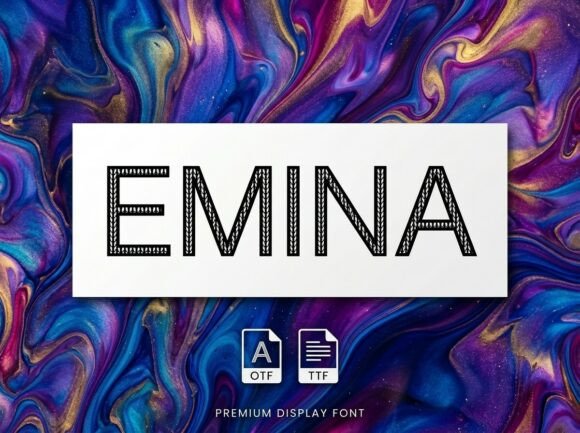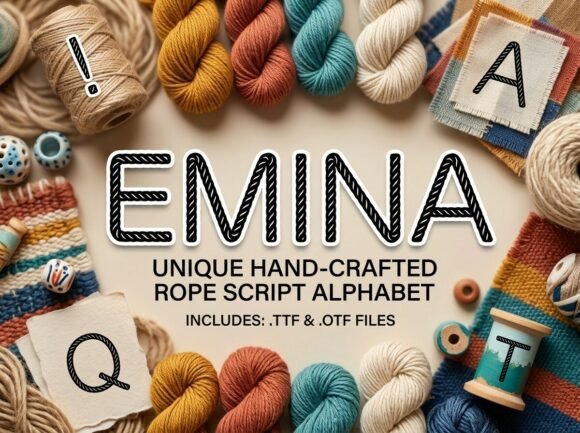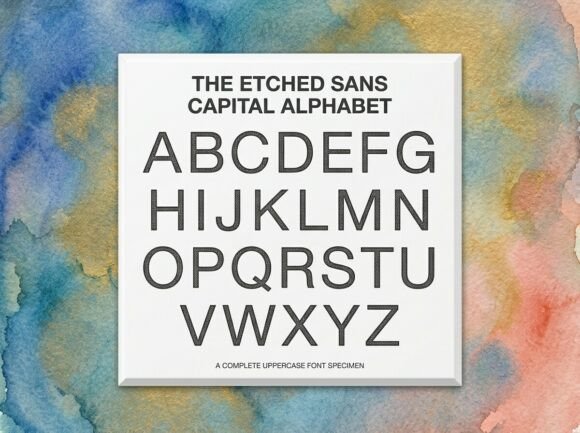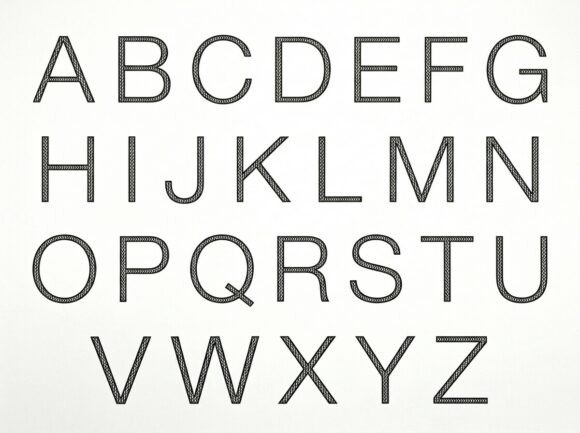
Emina Font: A Stunning Decorative Display Font for Creative Minds
Are you tired of using the same old fonts for your creative projects? Look no further than Emina Font, a breathtaking decorative display font that’s sure to turn heads. Designed to be the center of attention, Emina Font boasts unique artistic elements and a strong visual personality that will elevate your designs to the next level.
What Makes Emina Font So Special?
Emina Font is a versatile decorative font that’s perfect for creators who want to break away from the ordinary. Its stunning design makes it ideal for bold headlines, artistic logos, and creative packaging, while maintaining a professional and polished finish. Whether you’re a graphic designer, crafty DIY enthusiast, or entrepreneur looking to brand your business, Emina Font is the perfect choice.
⚠️ IMPORTANT NOTE BEFORE PURCHASE: Emina Font is an ALL-CAPS (Uppercase Only) display typeface. This means that it does not include lowercase letters. It’s specifically designed for high-impact headlines, logos, and decorative initials where every letter is a work of art. So, make sure to plan your design accordingly and take advantage of the font’s unique features.
Use Cases: Where Emina Font Shines
Emina Font is perfect for a variety of creative projects, including:
- Headlines and Titles: Add a touch of elegance and sophistication to your headlines and titles with Emina Font’s unique artistic elements.
- Packaging Design: Stand out on store shelves with eye-catching packaging that features Emina Font’s bold and decorative design.
- Social Media Graphics: Elevate your social media presence with stunning graphics that showcase Emina Font’s versatility and style.
Tips for Using Emina Font
To get the most out of Emina Font, here are a few tips to keep in mind:
- Experiment with Colors: Emina Font looks great in a variety of colors, so don’t be afraid to experiment and find the perfect hue for your design.
- Play with Texture: Add an extra layer of depth to your design by combining Emina Font with textures and patterns.
- Mix and Match: Pair Emina Font with other fonts to create a unique and visually appealing design.